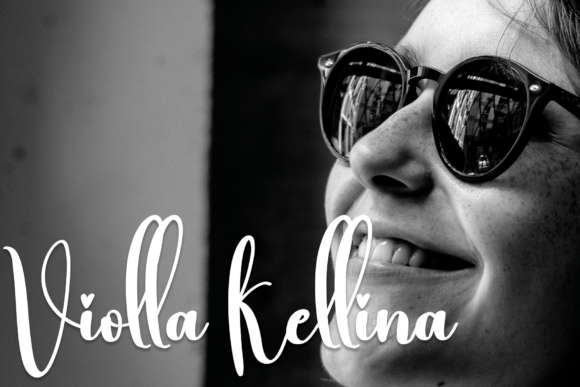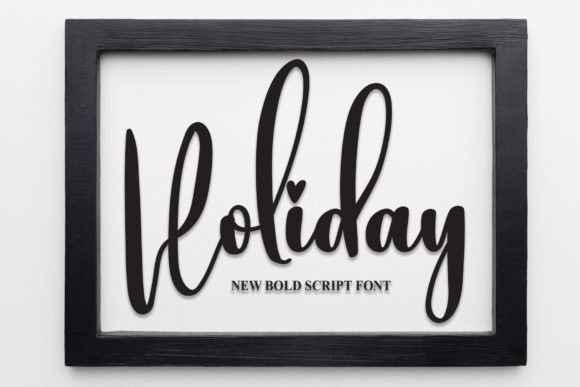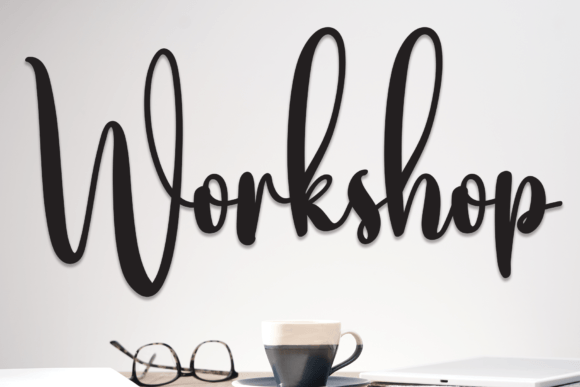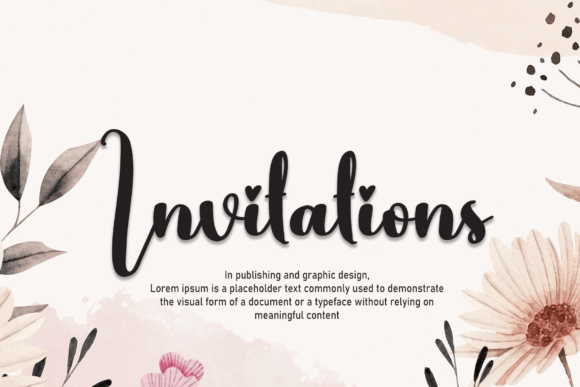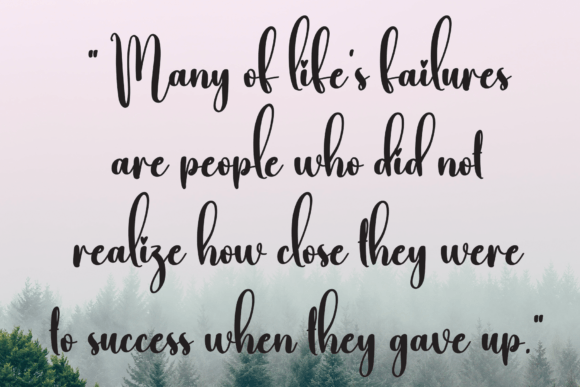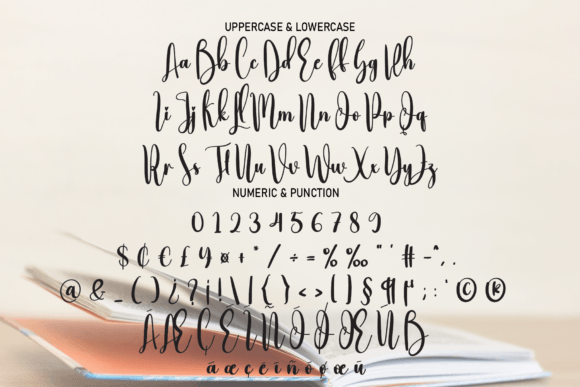
Diligence Font: Elevate Your Designs with Elegant Handwritten Style
In the world of design, fonts play a crucial role in conveying the tone and aesthetic of a project. For those seeking a touch of elegance and sophistication, the Diligence Font is an excellent choice. This font’s latest style letters are perfect for a wide range of applications, from wall displays and wedding invitations to social media post logos, advertisements, product packaging, and more.
What is Diligence Font?
Diligence Font is a beautifully crafted handwritten font that exudes a sense of refinement and luxury. Its elegant lettering style makes it ideal for designers and crafters looking to add a personal touch to their projects. Whether you’re working on a wedding invitation, a product label, or a social media post, Diligence Font is sure to impress.
Key Features of Diligence Font
• Elegant Handwritten Style: Diligence Font boasts a sophisticated handwritten style that adds a touch of class to any project.
• Versatile: This font is perfect for a wide range of applications, including wall displays, wedding invitations, social media post logos, advertisements, product packaging, and more.
• Easy to Read: Despite its elegant style, Diligence Font is easy to read, making it suitable for both digital and print projects.
• High-Quality: This font is crafted with attention to detail, ensuring a high-quality finish that will elevate your designs.
Uses of Diligence Font
Diligence Font is an incredibly versatile font that can be used in a variety of projects, including:
• Wedding Invitations: Add a touch of elegance to your wedding invitations with Diligence Font.
• Wall Displays: Create stunning wall displays with Diligence Font that are sure to grab attention.
• Social Media Post Logos: Elevate your social media presence with Diligence Font logos that exude sophistication.
• Advertisements: Use Diligence Font in your advertisements to add a touch of luxury and refinement.
• Product Packaging: Make your product packaging stand out with Diligence Font.
• Product Designs: Add a personal touch to your product designs with Diligence Font.
• Labels: Create beautiful labels with Diligence Font that are perfect for products, gifts, or more.
• Photography: Use Diligence Font as a watermark or overlay in your photography projects.
• Invitations: Create stunning invitations for any occasion with Diligence Font.
• Stationery: Elevate your stationery with Diligence Font, perfect for letters, cards, or more.
Why Choose Diligence Font?
With so many fonts available, why choose Diligence Font? Here are just a few reasons:
• Unique Style: Diligence Font offers a unique and elegant handwritten style that sets it apart from other fonts.
• High-Quality: This font is crafted with attention to detail, ensuring a high-quality finish that will elevate your designs.
• Versatile: Diligence Font is perfect for a wide range of applications, making it a great addition to any designer’s toolkit.
• Ease of Use: This font is easy to read and use, making it suitable for both digital and print projects.
In conclusion, Diligence Font is an excellent choice for designers and crafters looking to add a touch of elegance and sophistication to their projects. With its elegant handwritten style, versatility, and high-quality finish, this font is perfect for a wide range of applications. Whether you’re working on a wedding invitation, a product label, or a social media post, Diligence Font is sure to impress.